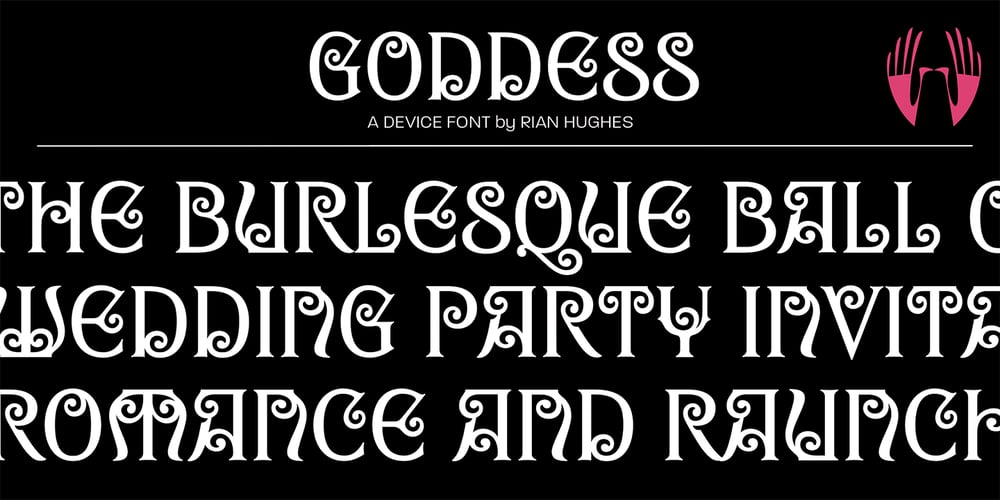
Goddess
Goddess font
Goddess Font Family was designed by Rian Hughes and published by Device. Goddess contains 2 styles and family package options. Decadent, baroque and refined. Sinuous curves, ornate swashes and alternates that can be customized to suit your burlesque ball, bodice-ripping romance novel or high-fashion label. The “Swash” version includes swash capitals that can be toggled on or off using the ‘swash’ option in Adobe apps. The “Title” version includes drop-caps that connect with an underline that runs under the regular characters. These again can be toggled on and off using the ‘swash’ option. Also includes optional stylistic alternates and ligatures.